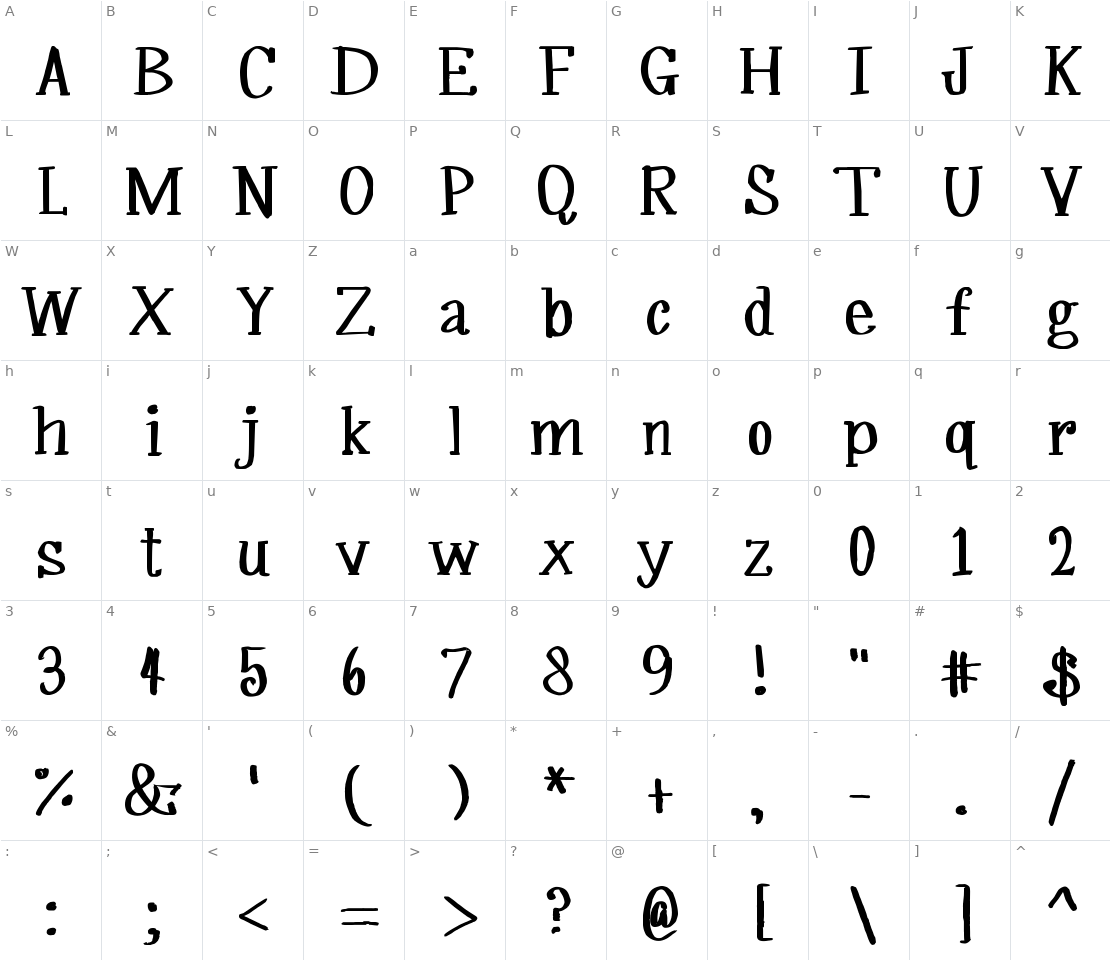
MRF Silverplume
MRF Silverplume is a quirky, handcrafted serif from Sabrina Schleiger with irregular letterforms that feel drawn rather than constructed. The serifs and strokes have a loose, whimsical quality, like someone lettered them with confidence but no ruler, giving each character a distinct personality. It works well as a display face for headlines, packaging, and branding where a little offbeat charm goes a long way.